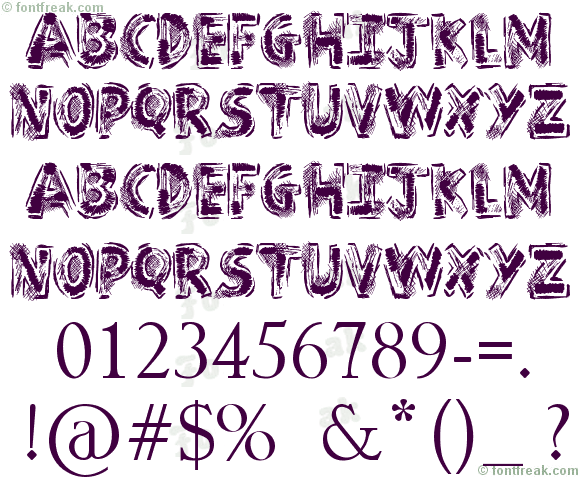
Sketch Pad
About Sketch Pad
The Sketch Pad font by Jonathan S. Harris is a unique handwritten typeface that evokes the charm of hand-drawn lettering. With its playful and artistic style, this decorative font features uneven stroke weights and a textured appearance that mimics the look of pencil or charcoal sketches. The contrast in its strokes adds depth, while the spaced-out letters provide clarity and readability. This font is characterized by its whimsical flair, making it perfect for creative applications.
The Sketch Pad font is particularly well-suited for a variety of design projects. It shines in contexts that require an informal yet artistic touch, such as children's book covers, craft fair posters, or whimsical wedding invitations. Additionally, it can be effectively used in branding for artisanal products, logos for creative businesses, and even restaurant menus that aim to convey a casual, inviting atmosphere. Content creators will find it a great asset for social media graphics and blog headers, where a personal touch can engage their audience.